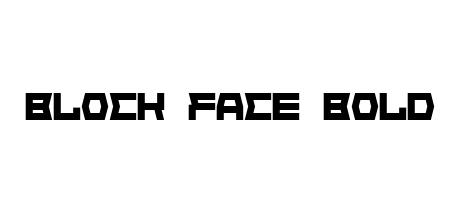
Block Face
Block Face Bold is a bold, geometric sans-serif font. Its chunky, uppercase letters have sharp, almost brutalist edges. Each character is a solid block of dark color, creating a stark, powerful, and slightly aggressive visual impact. It's perfect for headlines needing a strong, attention-grabbing presence.